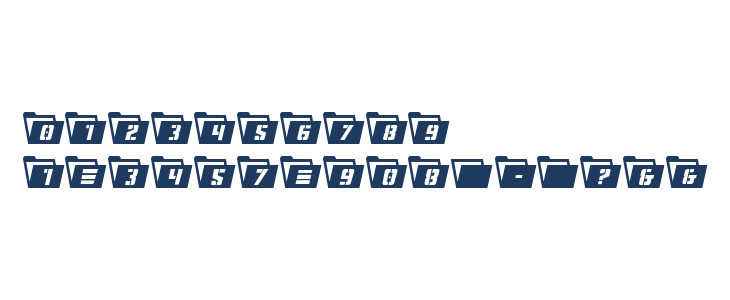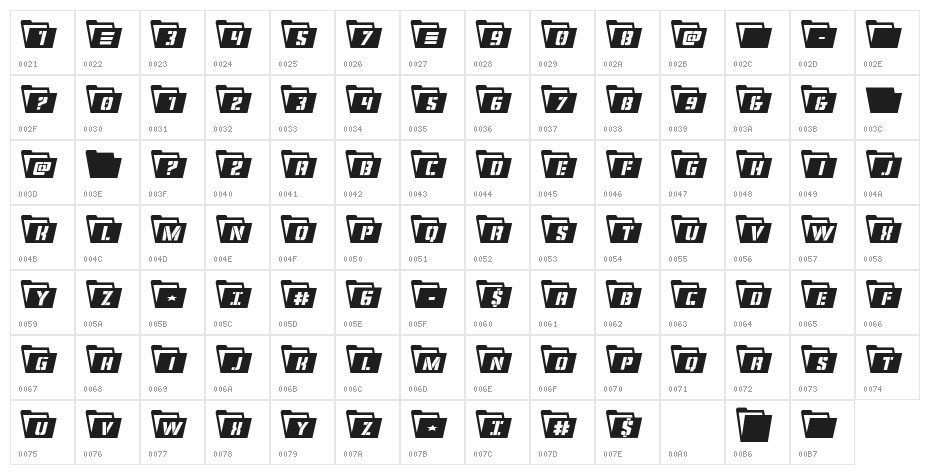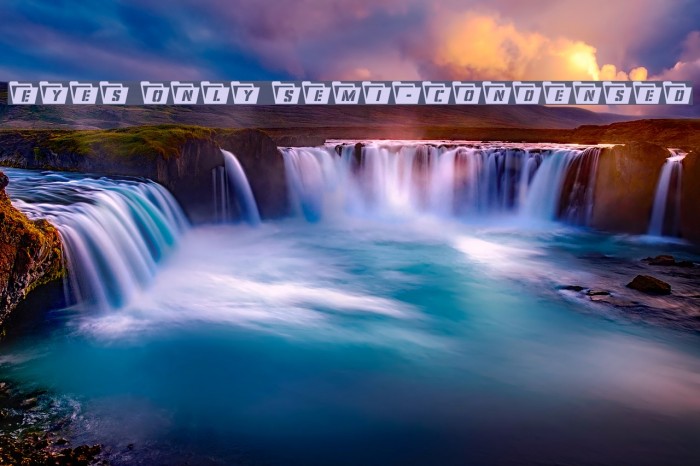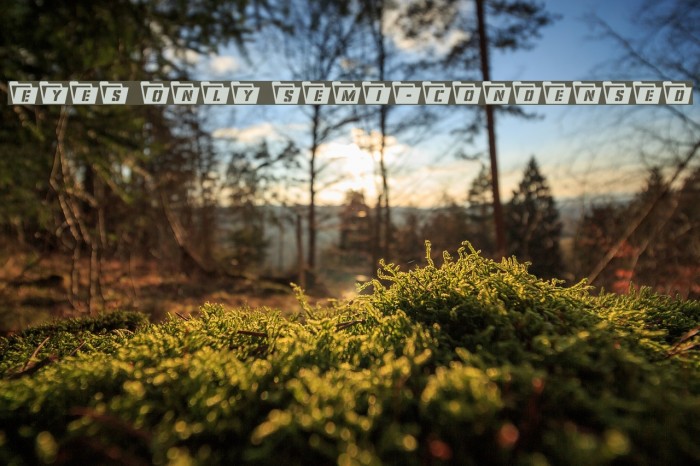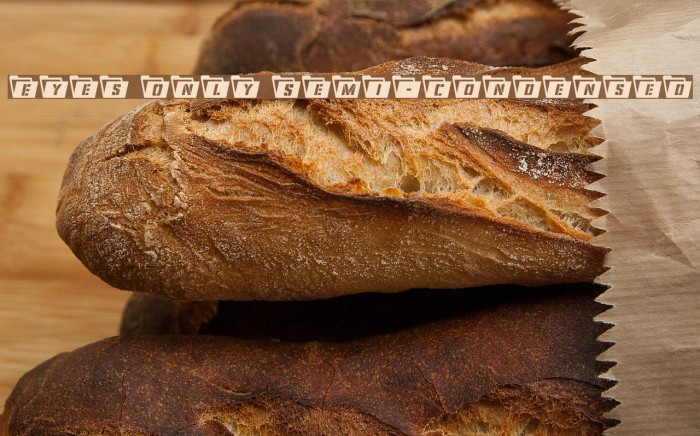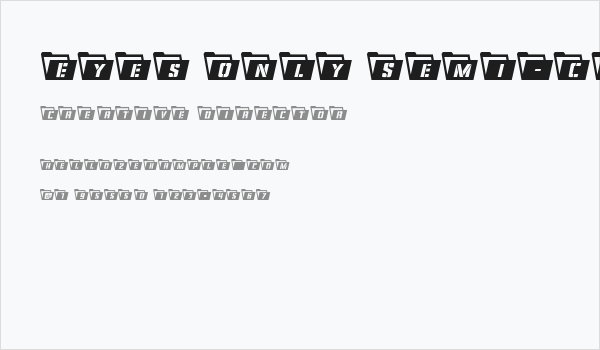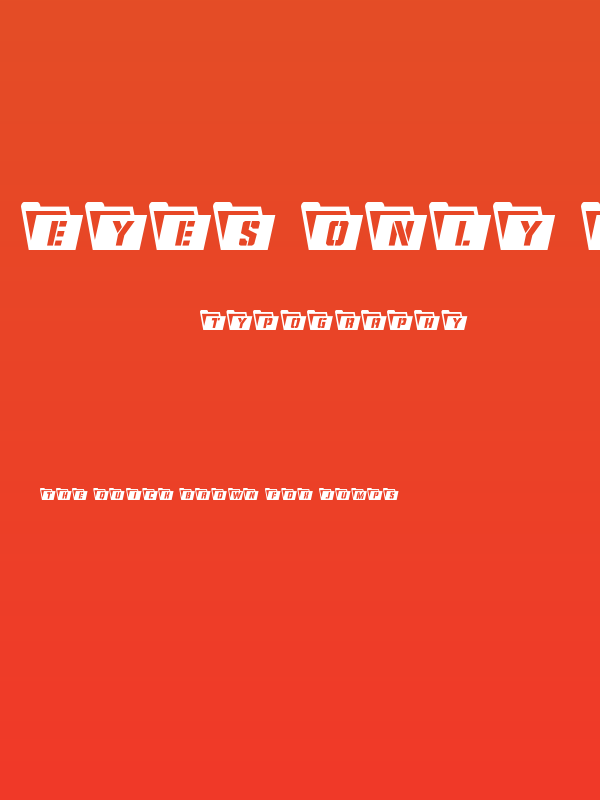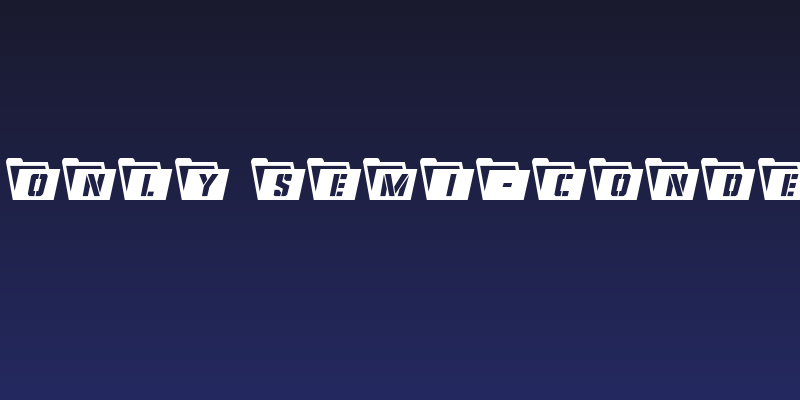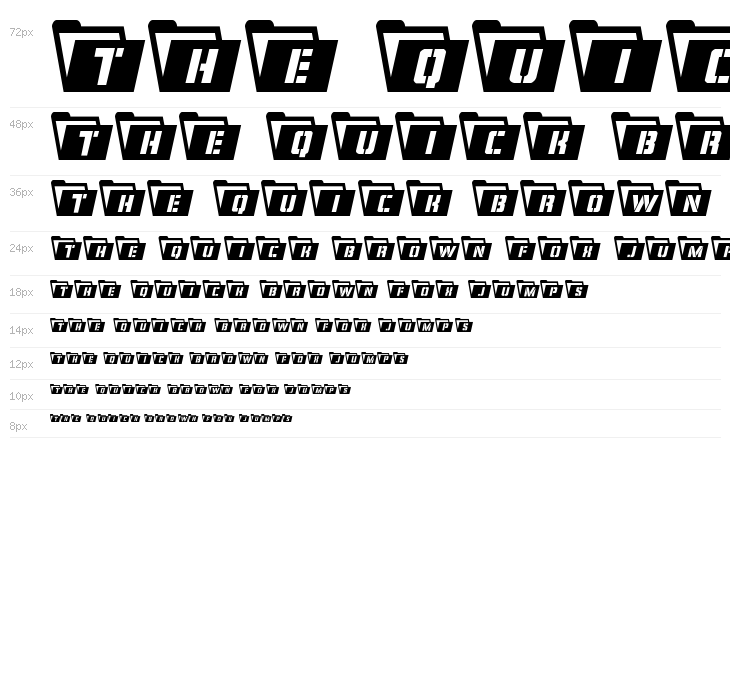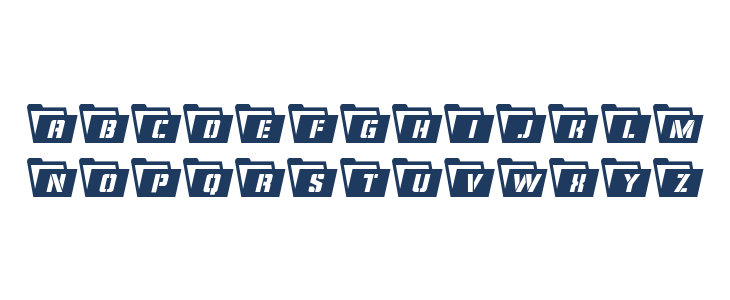
Eyes Only Semi-Condensed Font
Eyes Only Semi-Condensed Description
This font features a bold, modern design with a unique folder-like shape surrounding each character. The letters and numbers are encapsulated in a stylized, angular container that gives a sense of depth and dimension. The characters themselves are bold and slightly condensed, with a consistent stroke width that maintains readability. The overall style is futuristic and tech-inspired, making it ideal for projects that require a distinctive and eye-catching typeface. The special characters are integrated seamlessly into the design, maintaining the same bold and structured appearance.